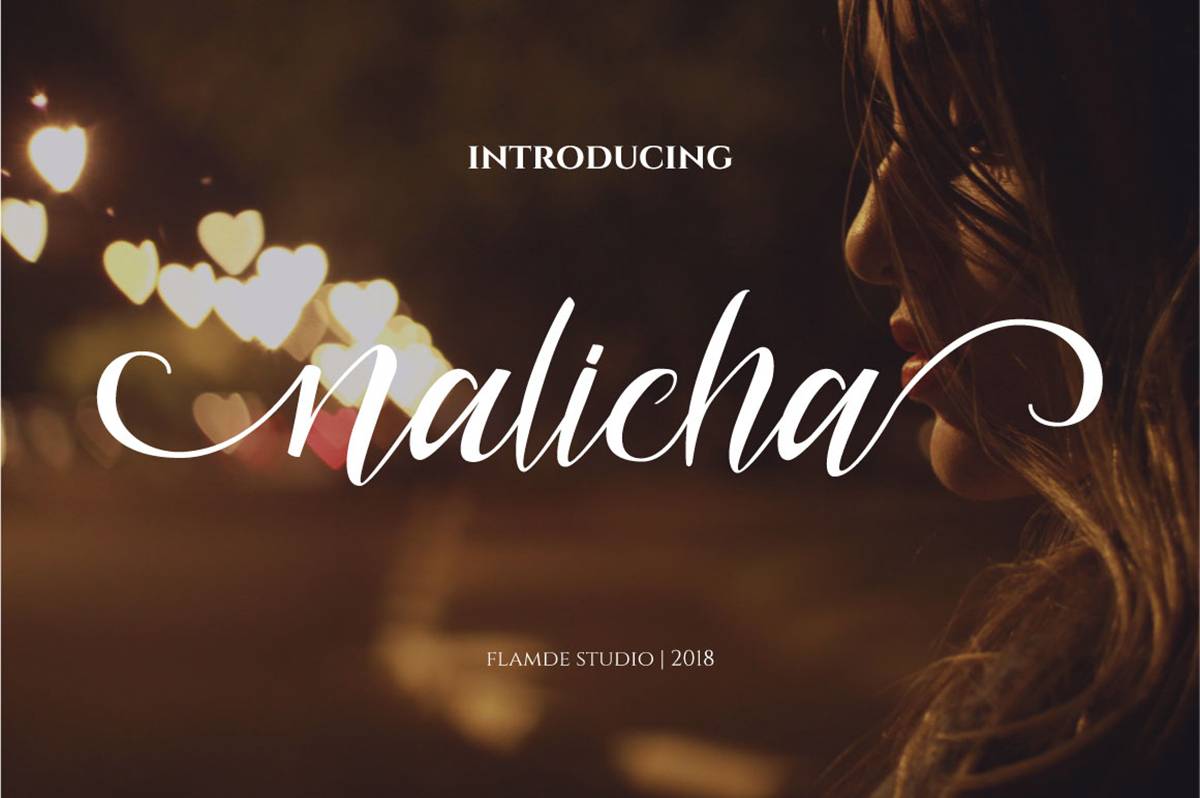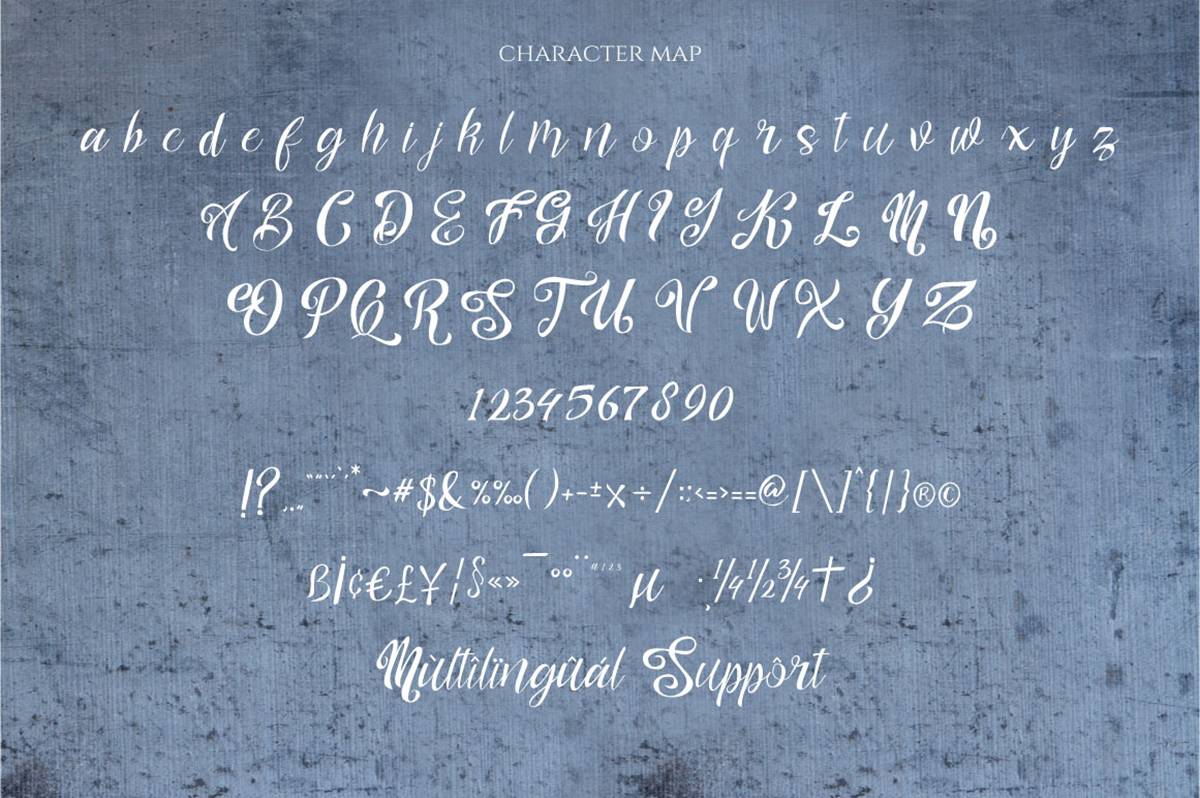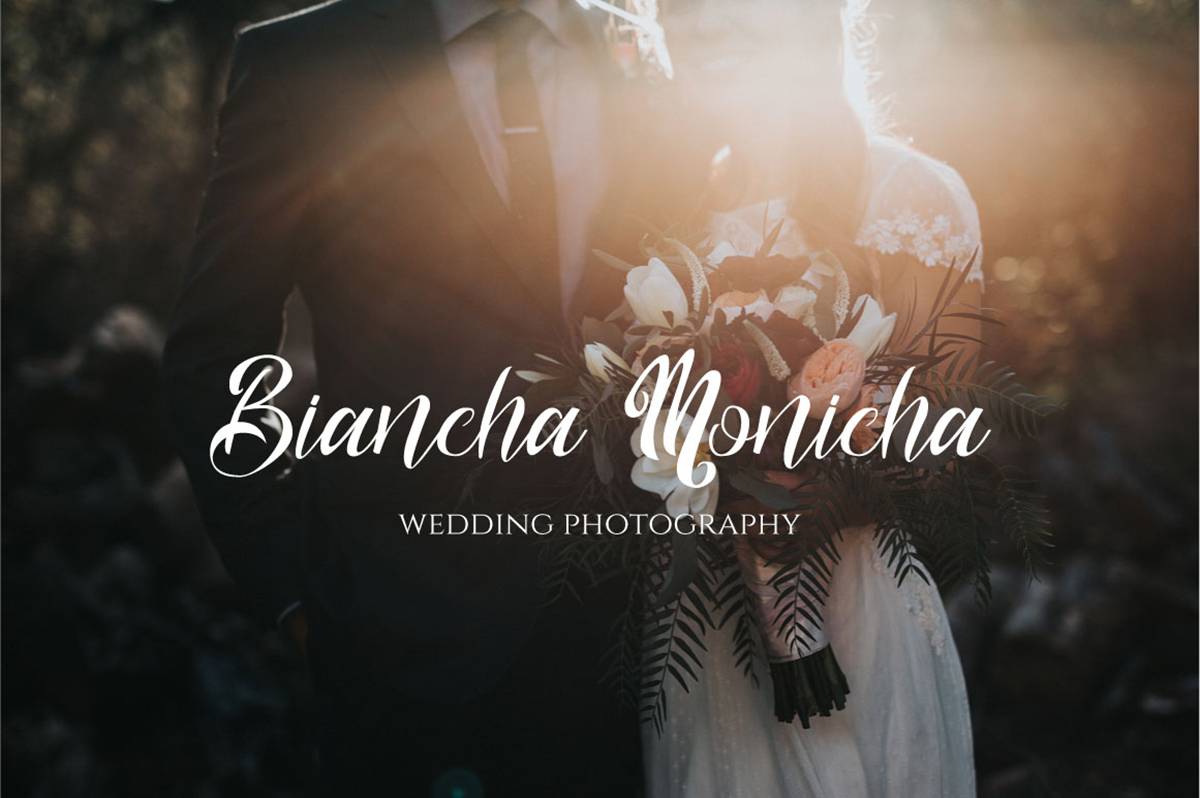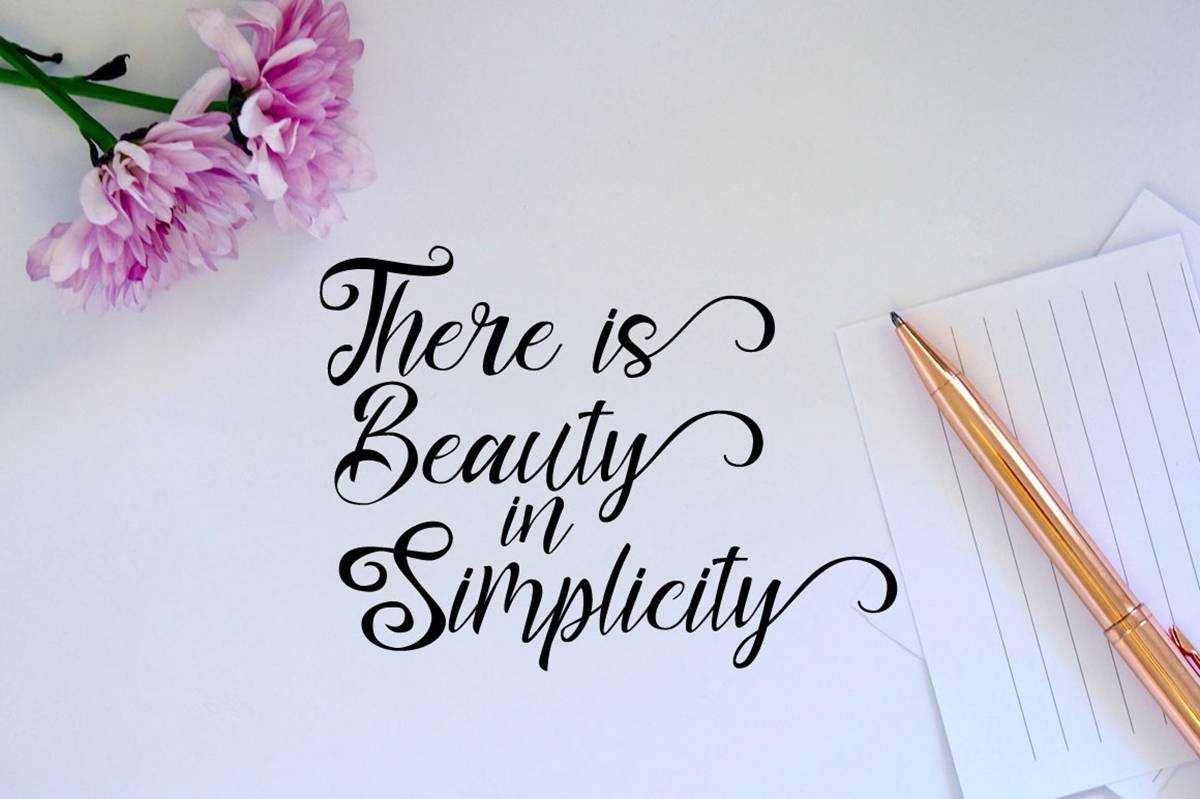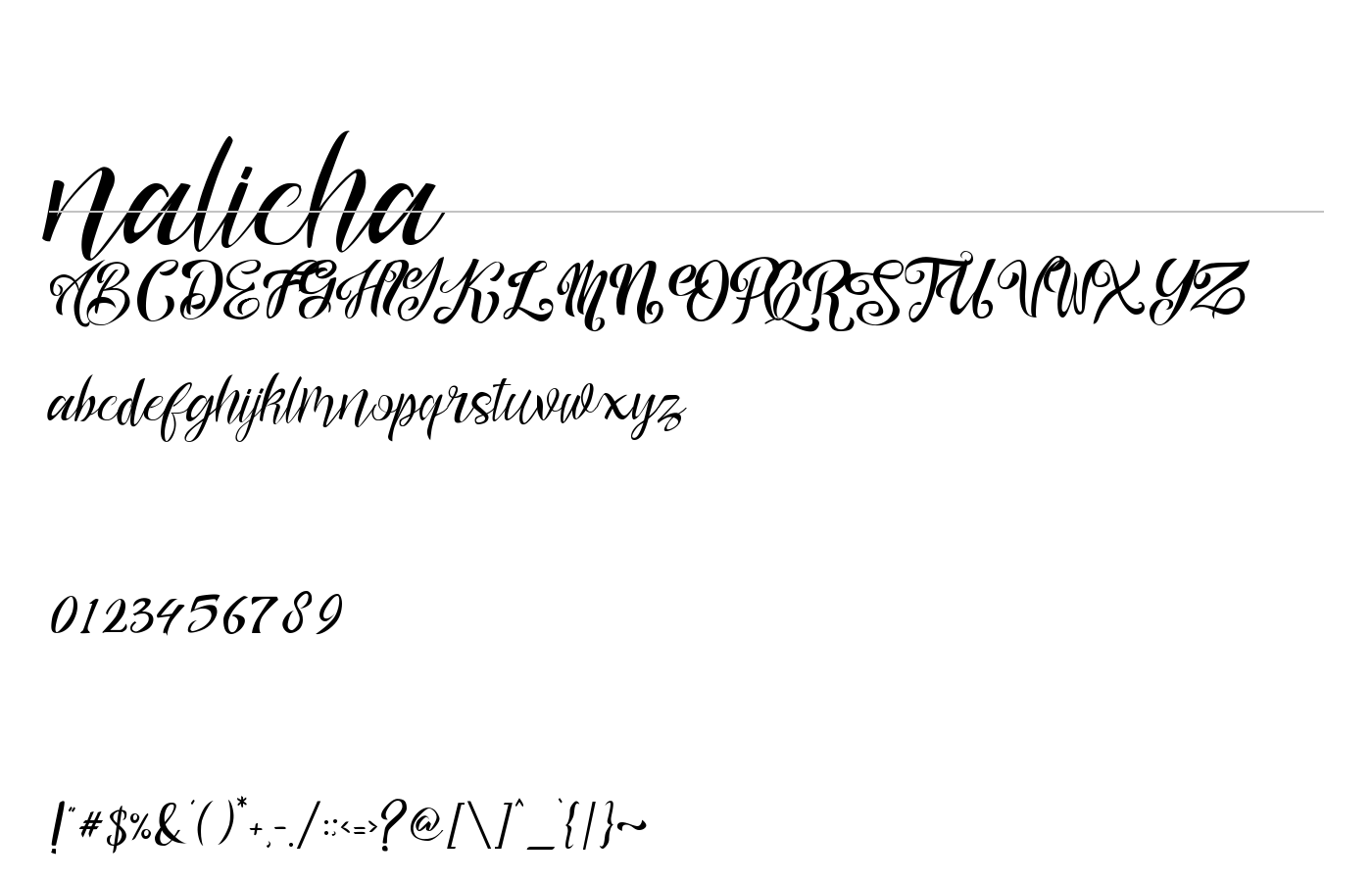
Nalicha is an elegant script font that features flowing, calligraphic letterforms with a graceful, handwritten feel. Its mix of delicate strokes and ornamental uppercase letters make it perfect for luxurious branding, invitations, and stylish logos, where a sophisticated yet personal touch is needed. This font’s refined curves and moderate contrast help it stand out beautifully in decorative and creative designs.
Nalicha Font
About Nalicha Font
| Font family | Nalicha Font |
| Release date | 2018-10-06 |
| Designer | Nur Solikh |